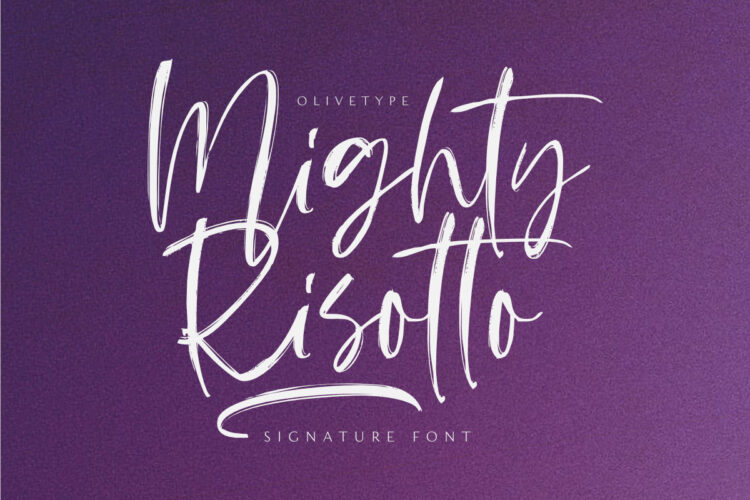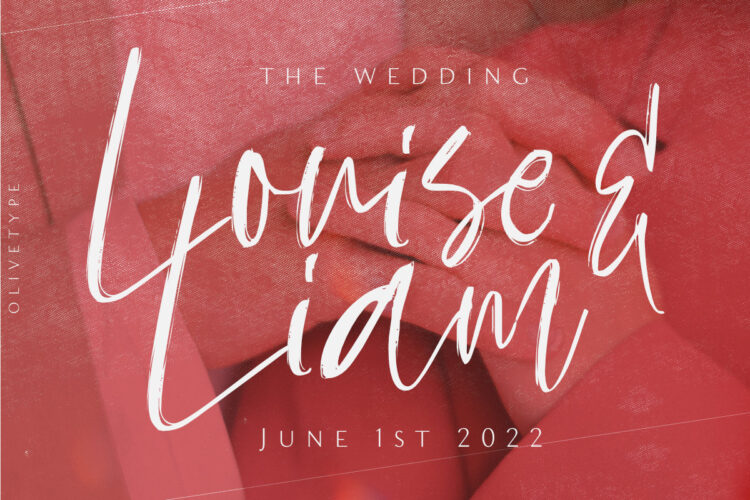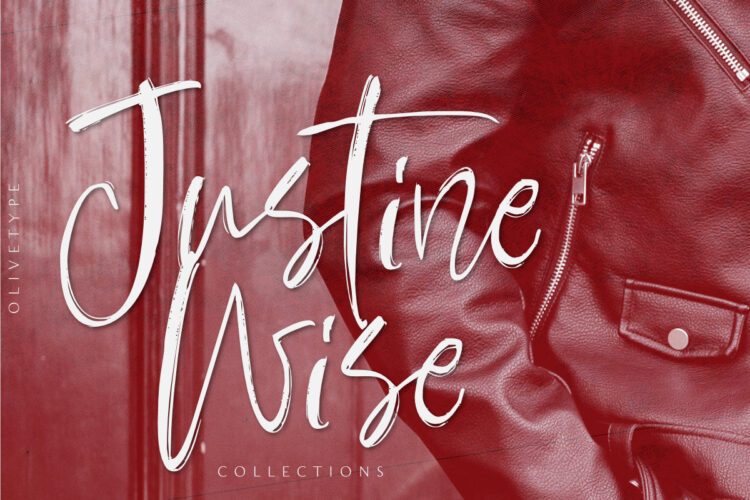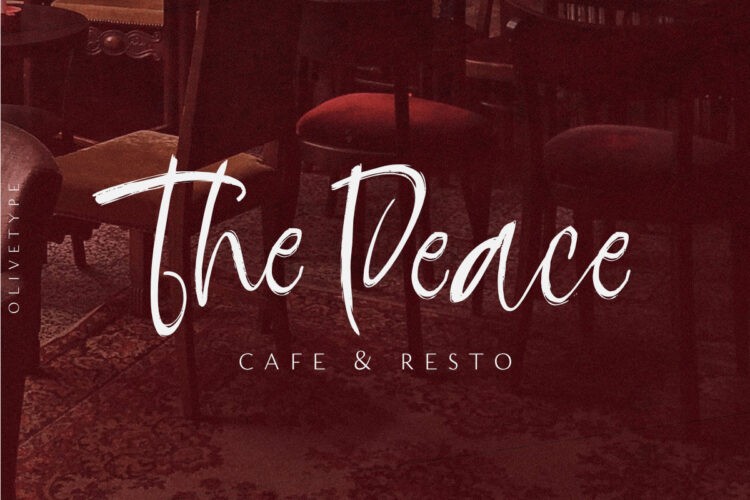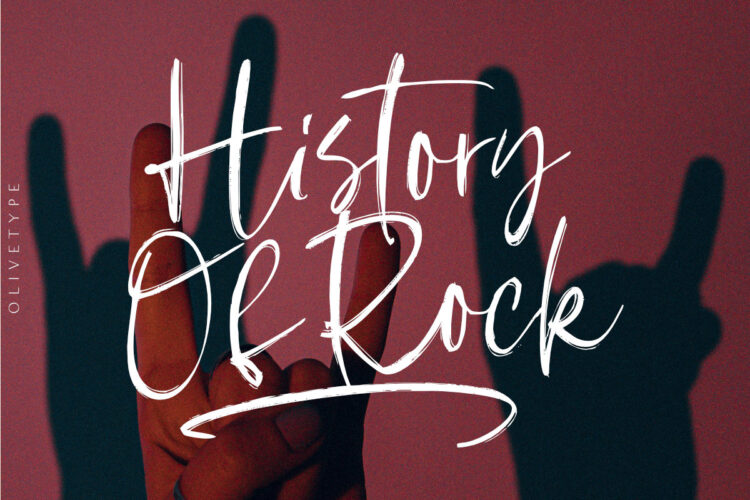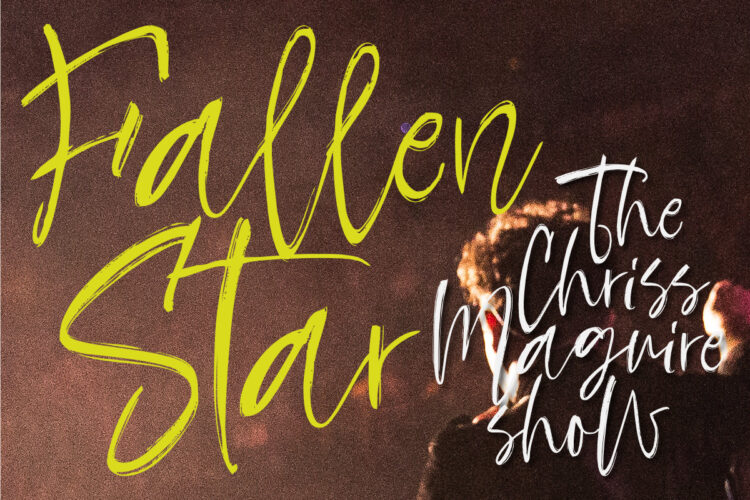
Hungry for a cool texture script font? You’re in luck! Mighty Risotto is a carefree signature script font with a wide spectrum of applications that gives you just the right feel for all projects. Introduce your new product with a custom logo, or make your next project stand out from the crowd with high-end typography. The possibility is endless.
- Basic Latin Uppercase and Lowercase
- Ligatures & Under Swashes